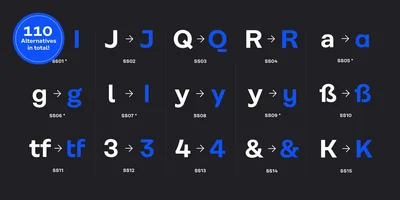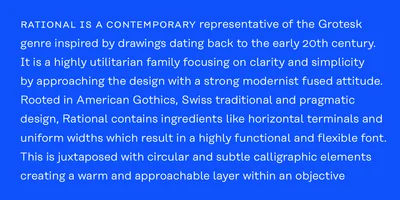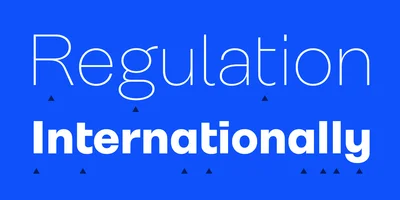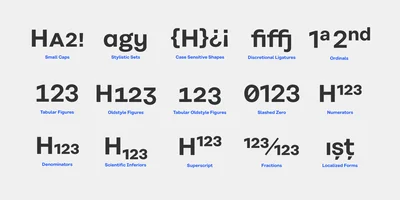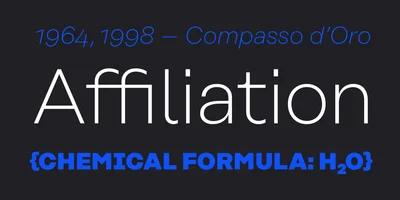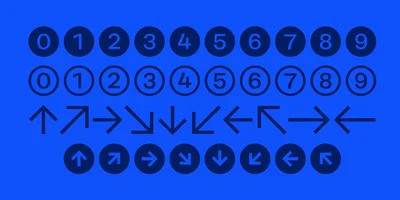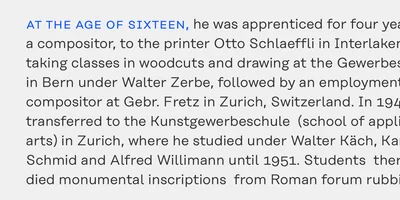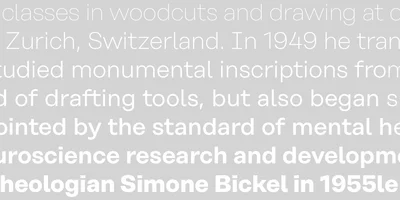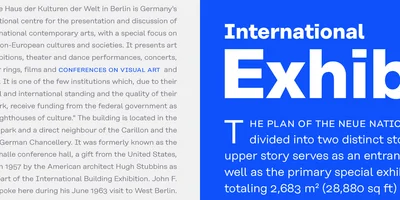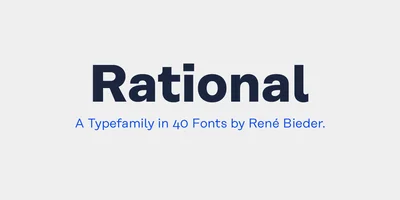
Rational vs Silka
Rational and Silka are both sans-serif typefaces sharing a geometric foundation. Compare which suits your Branding project.
Design overlap:75%
Rational
Geometric
MinimalModern
Display
Silka
Geometric
MinimalModern
Rational
Silka
Feature Rational Silka
Classification sans-serif sans-serif
Weights Multiple Multiple
Italics Yes Yes
Rational Silka
Display & Headlines
Rational Silka
UI Design
Rational Silka
Recommended: Rational
• display design character
• Suited for Display
• From Rene Bieder
Consider: Silka
• Suited for Ui
• From atipo